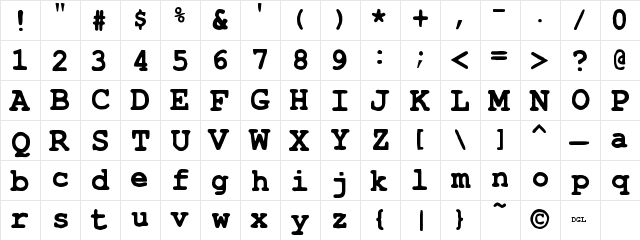
TypeWrong Smudged - DGL Bold
Design Context for TypeWrong Smudged - DGL Typeface
TypeWrong Smudged - DGL is a composed and adaptable typeface that performs quietly and consistently across a wide range of design contexts. The heavy weight commands attention and anchors typographic hierarchies.